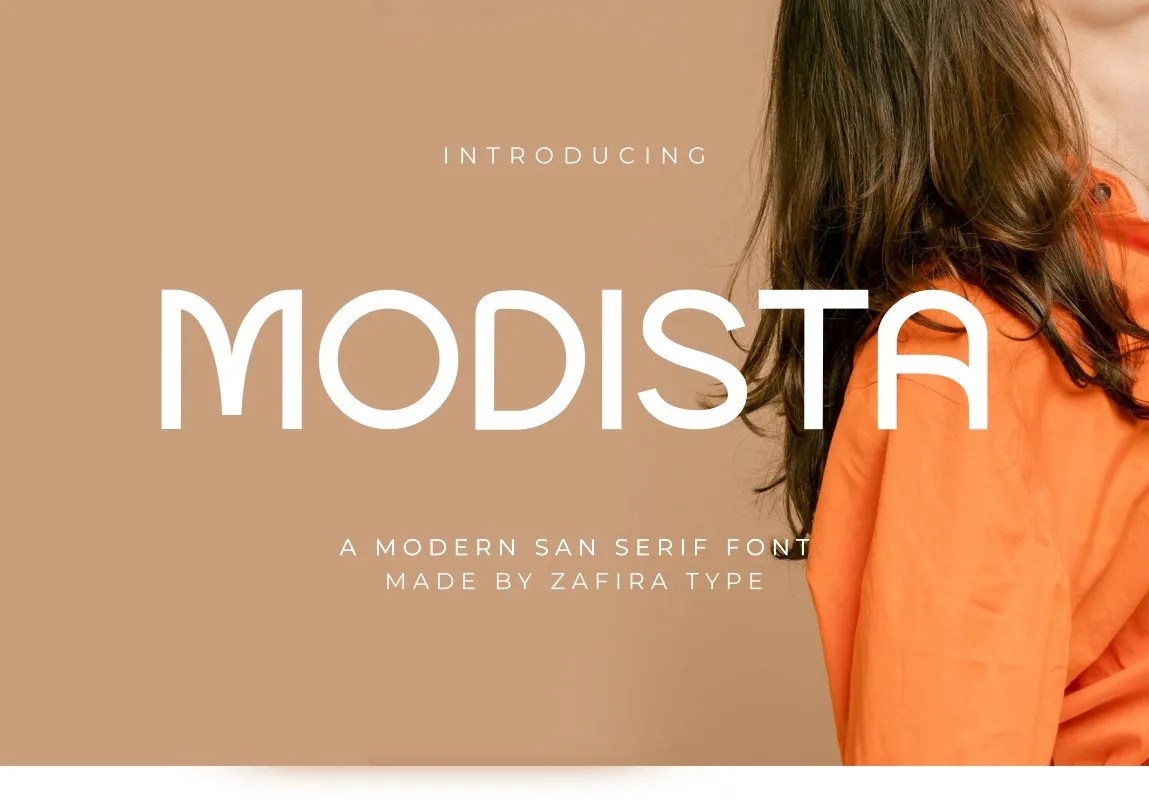
Modista Font
Modista is a unique unicase sans serif font, expertly crafted for use in logos, branding projects, and wedding designs. Its versatile nature extends to social media posts, product packaging, labeling, photographs, invitations, stationery, and any project requiring high readability.
Whether you need a distinctive touch for branding or a clean, modern look for various applications, Modista stands out with its striking design and functional elegance.